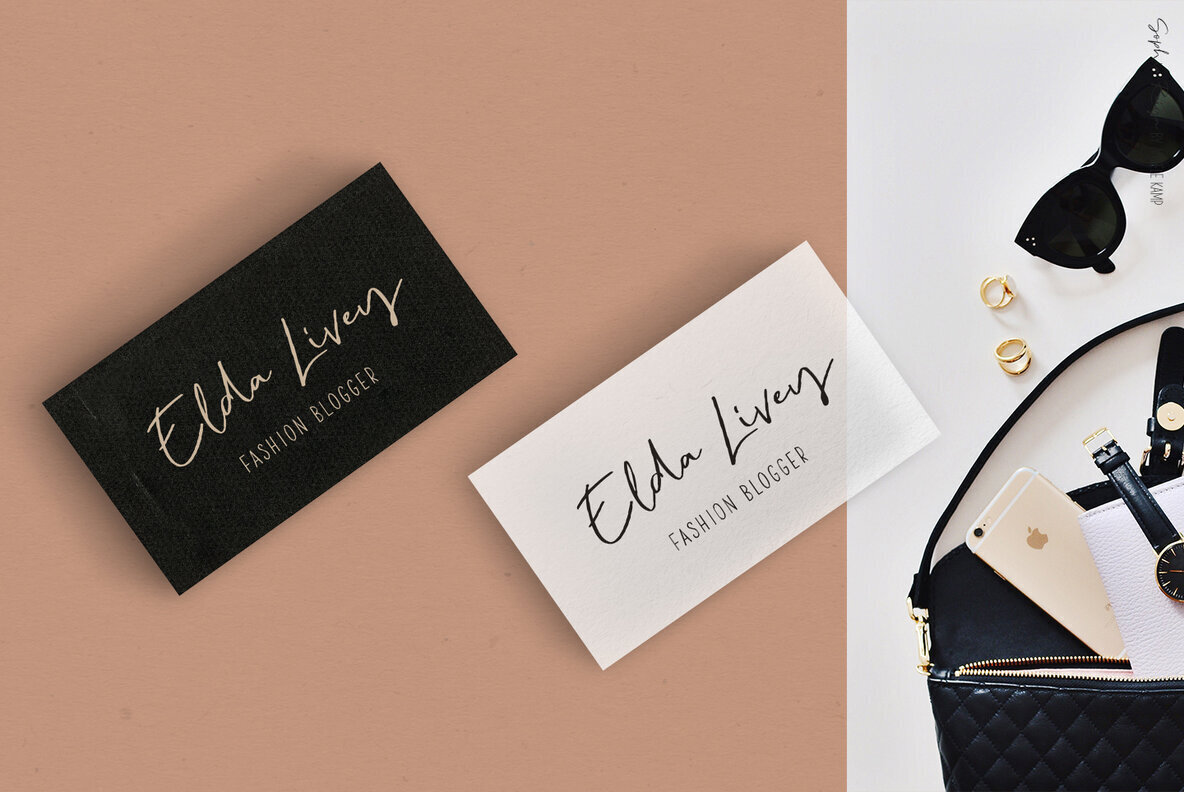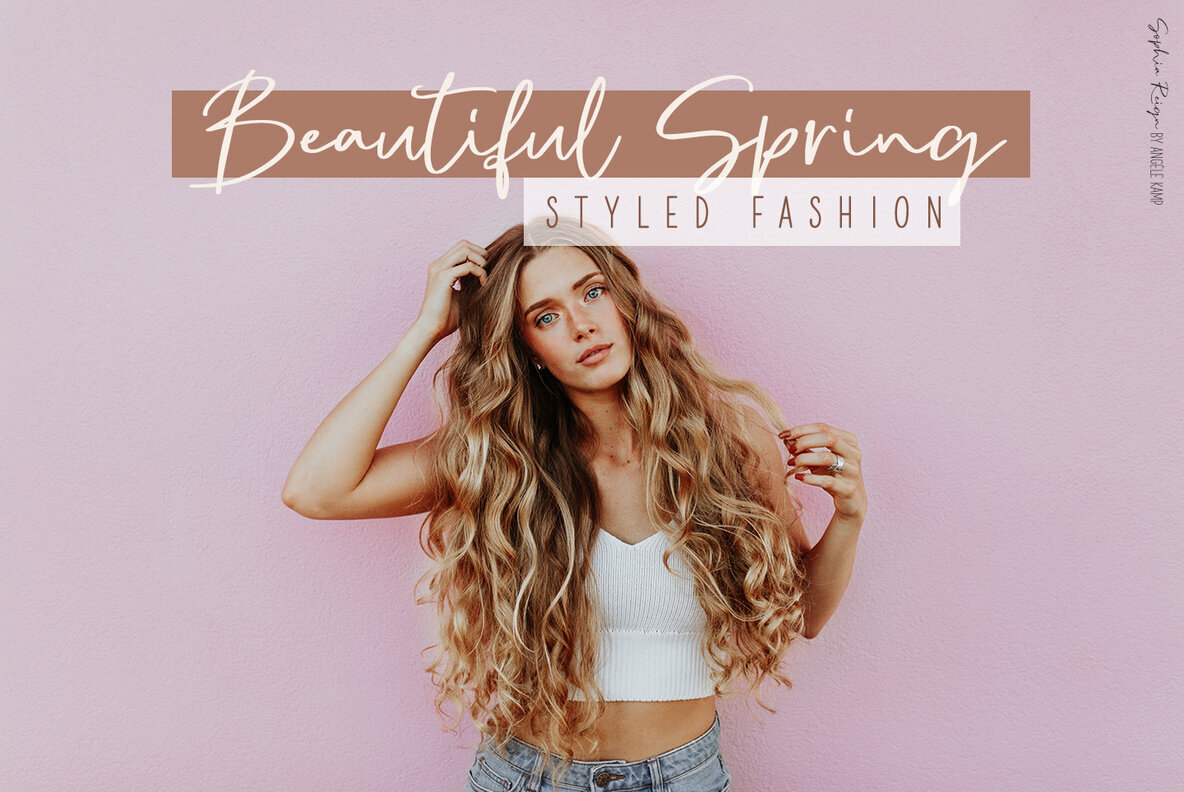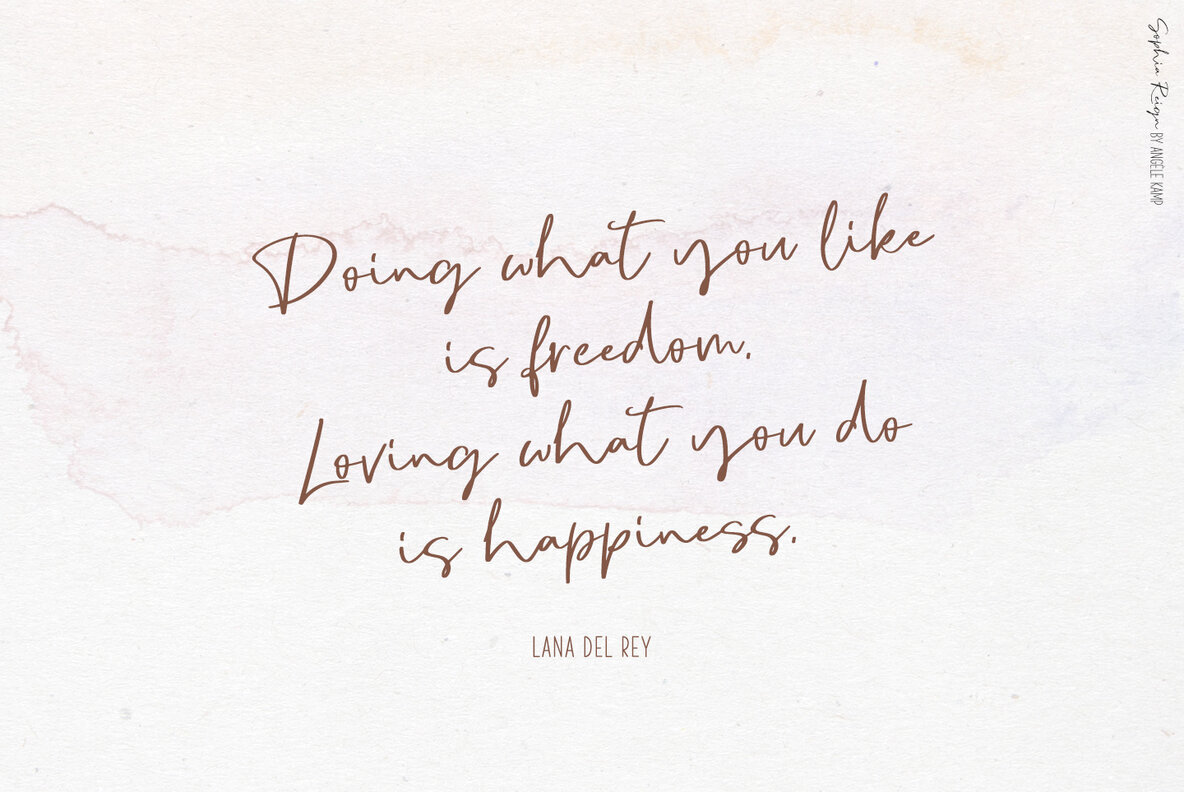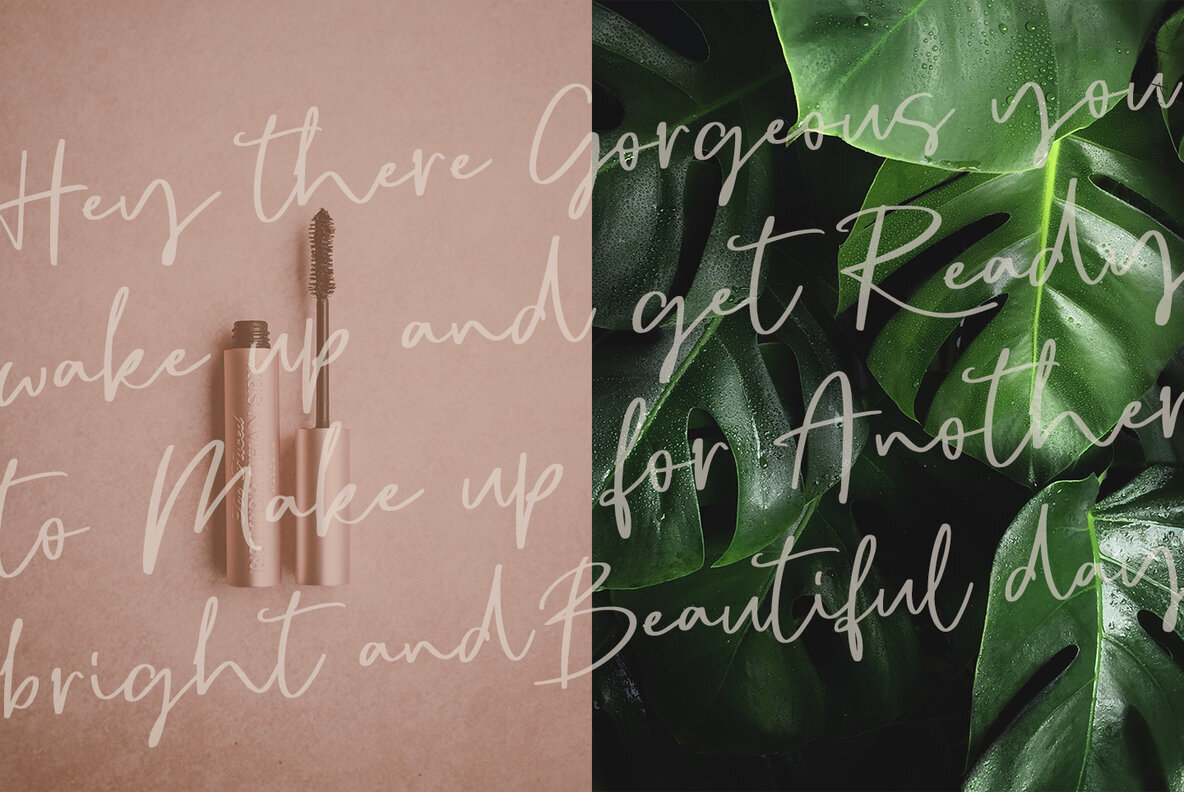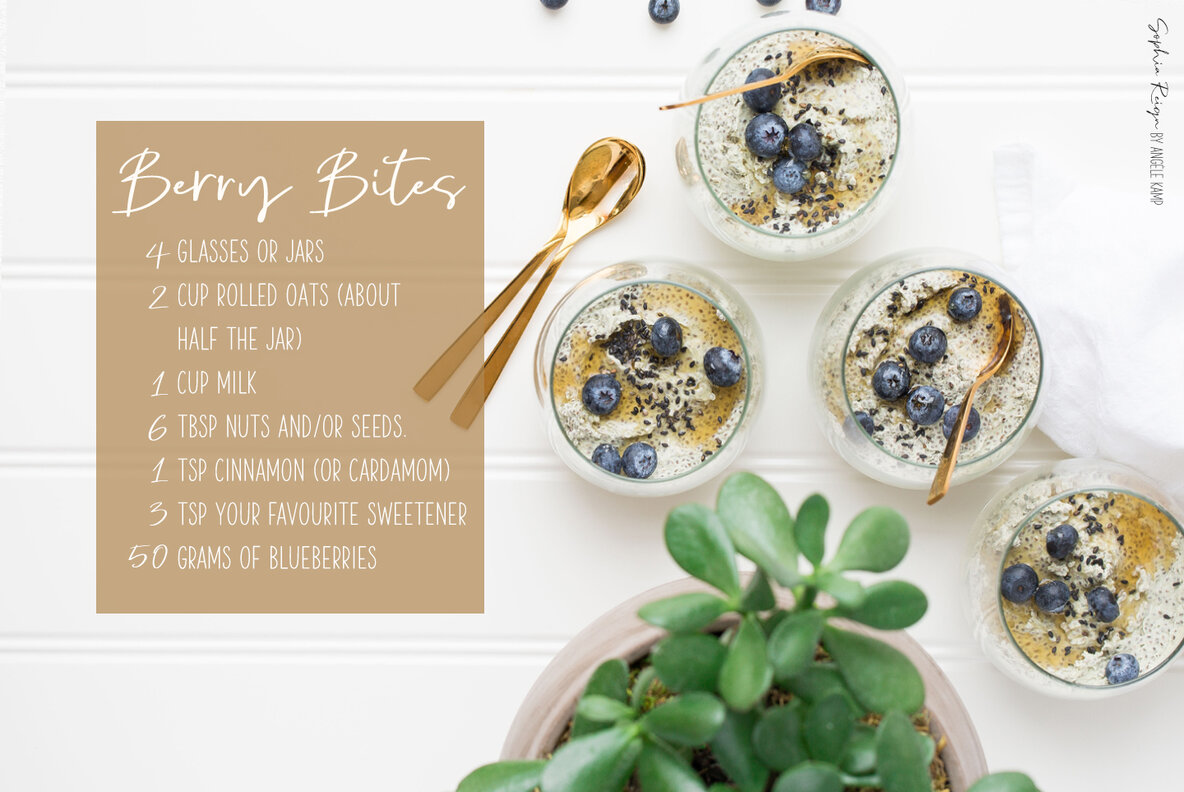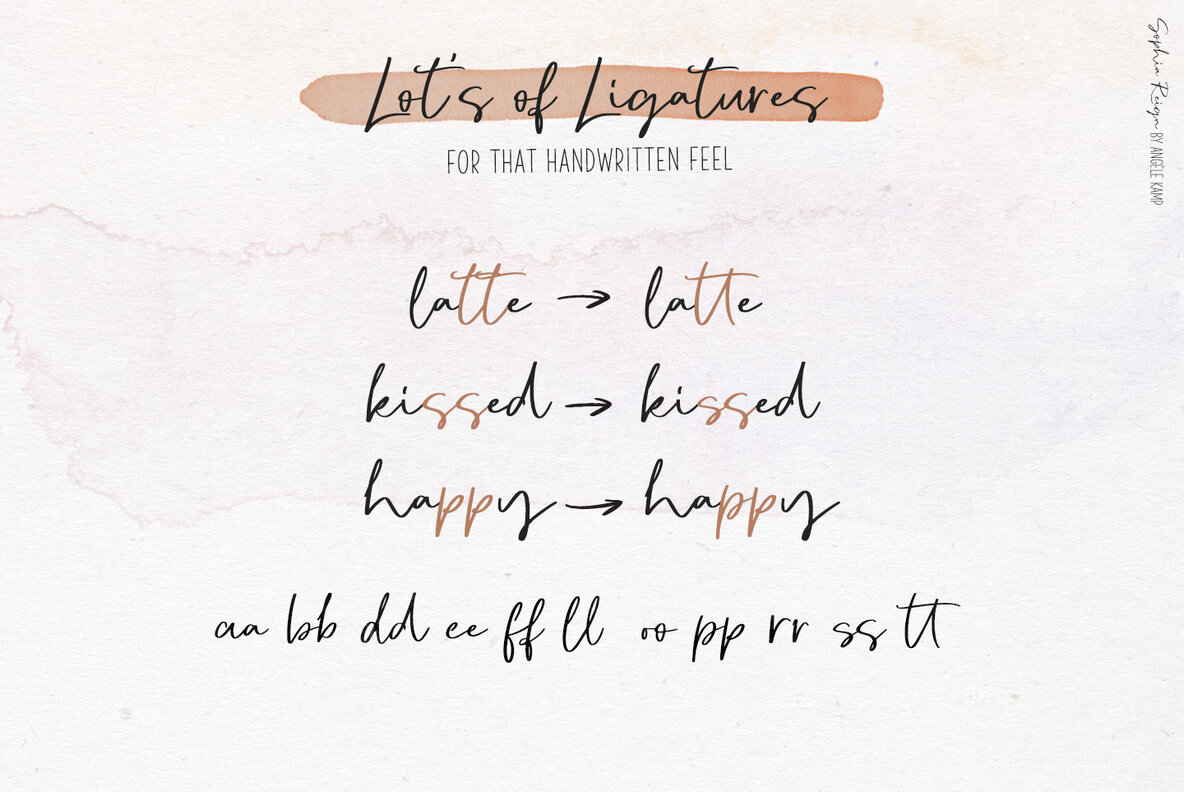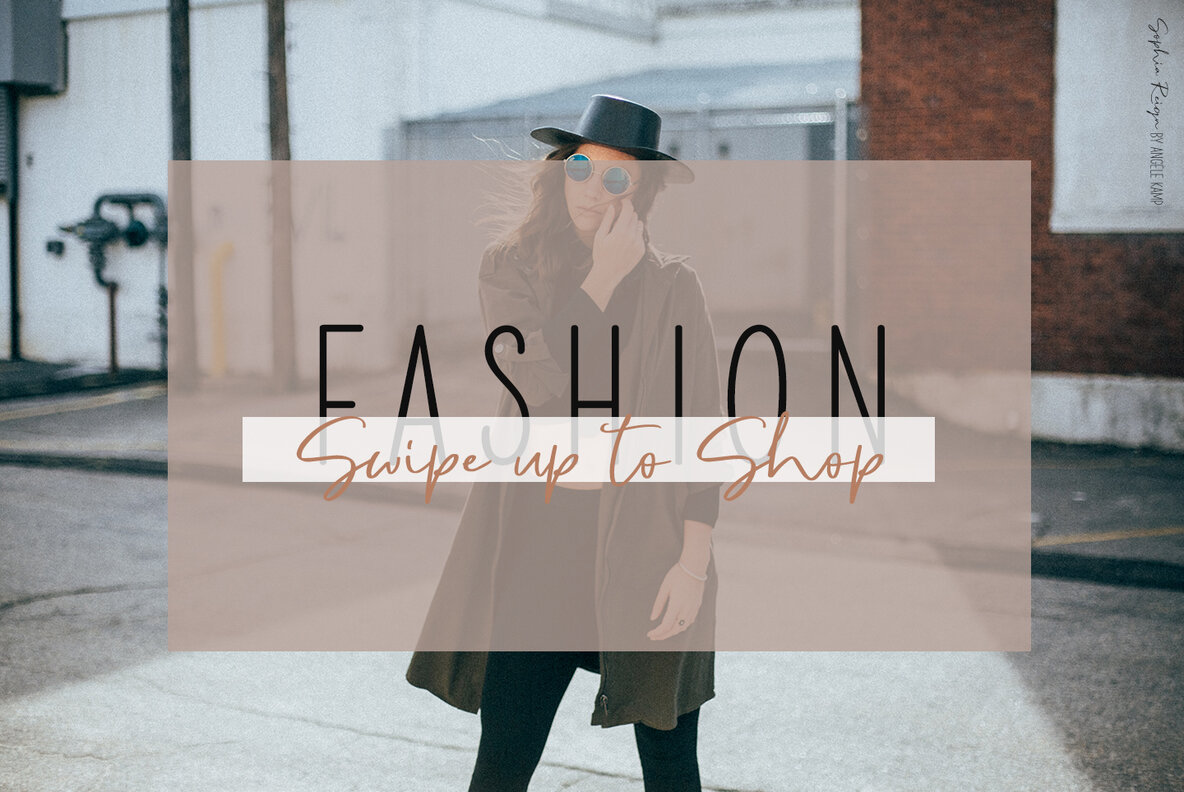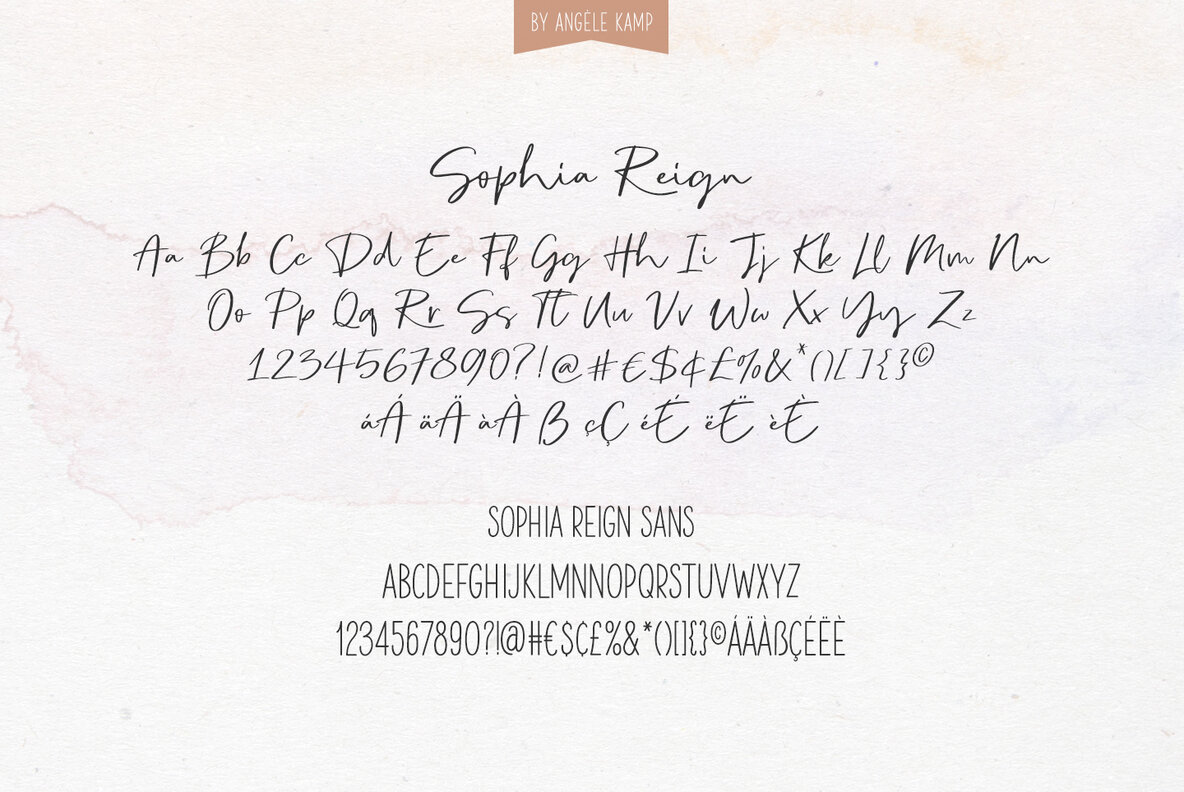
Sophia Reign Font Duo
Meet Sophia Reign, the perfect font duo! She's got a handwritten signature font and an all-caps font that pairs perfectly with it. Use it for logos, magazines, Instagram quotes, branding, advertisement, and more.
Sophia Reign is a signature font with lots of ligatures for that handwritten feel. Sophia Reign Sans is an all-caps font that complements the signature font perfectly.